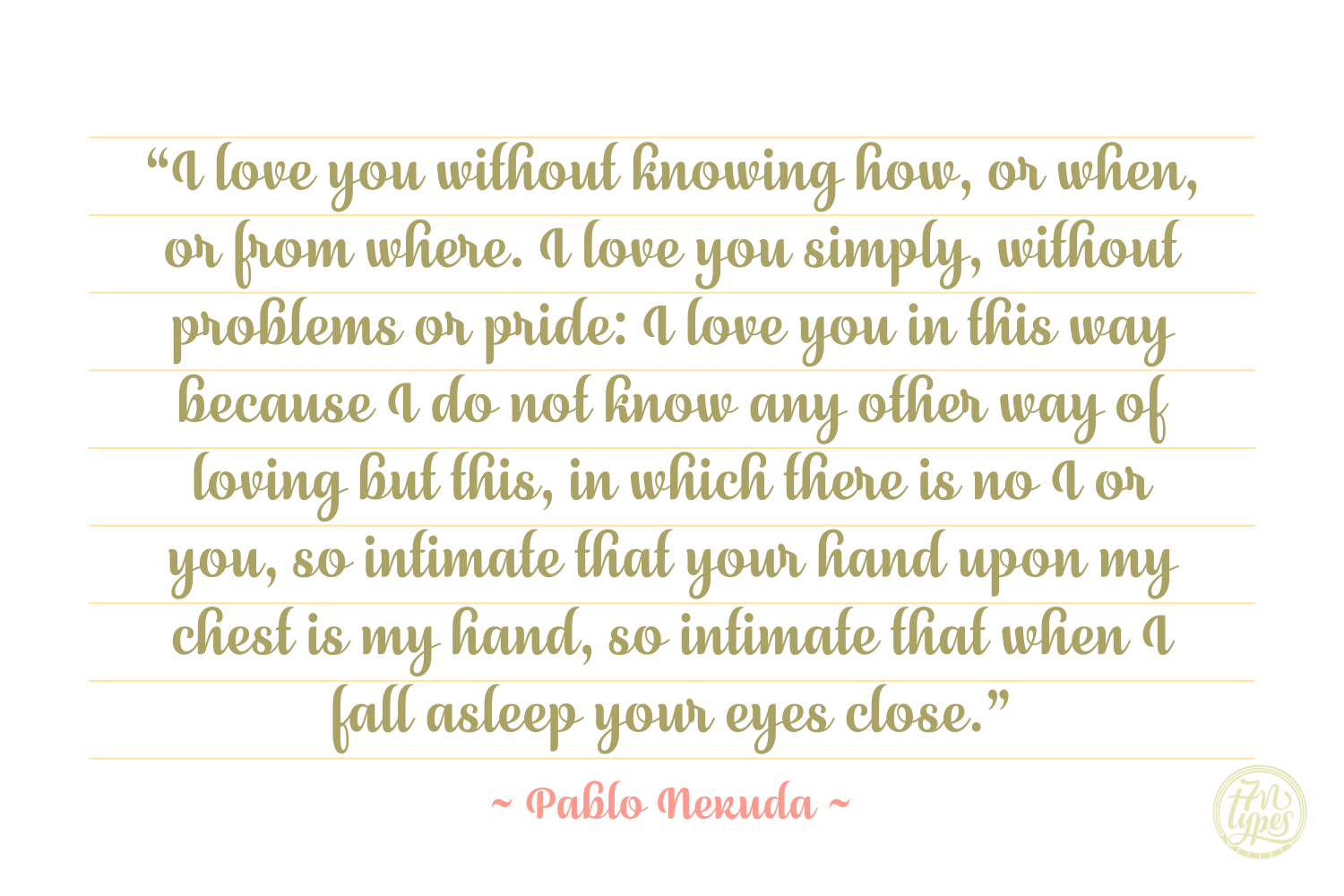
July Seventh Font
db-ku.com - Script & Handwritten -- The July Seventh font is a stunning font that comes packed with over a 1000 unique handmade glyphs. We advice you to check out the specimen to see everything that is included in this beautiful font.